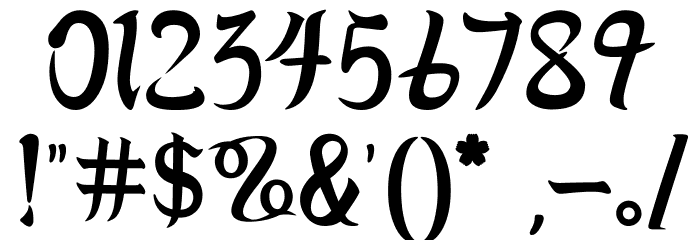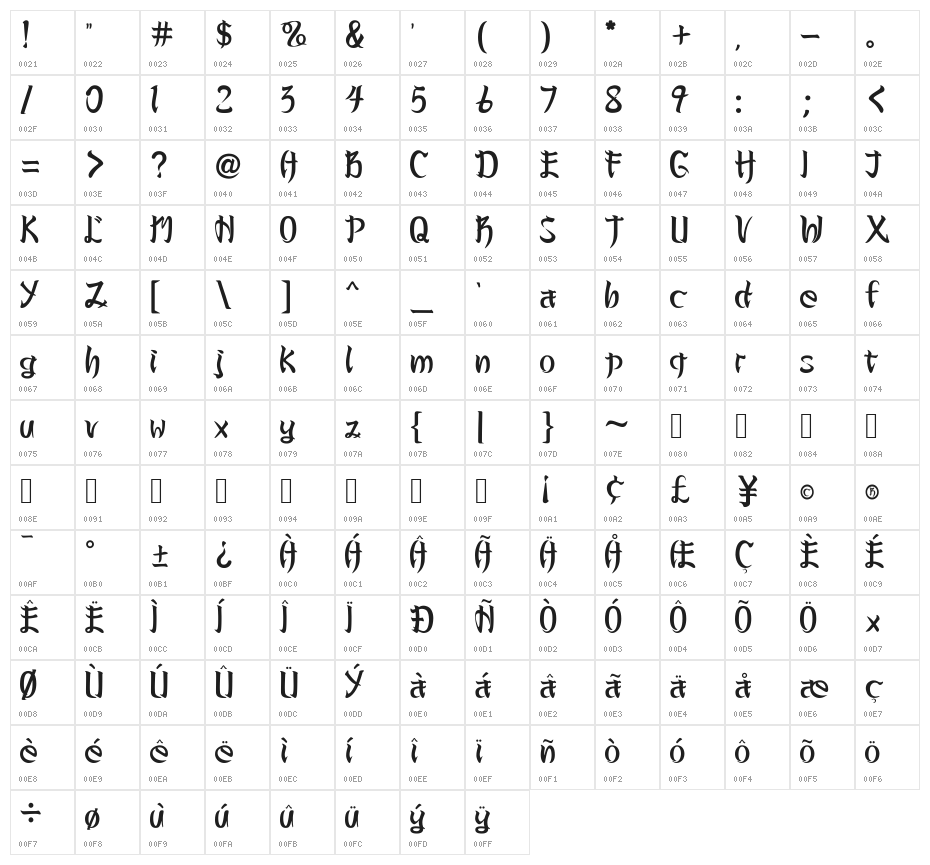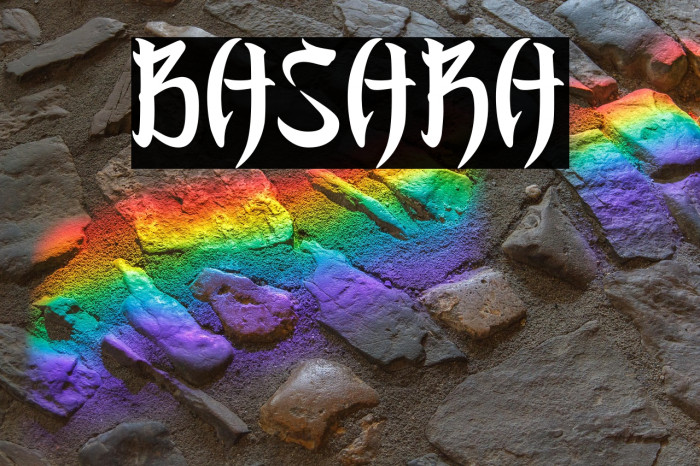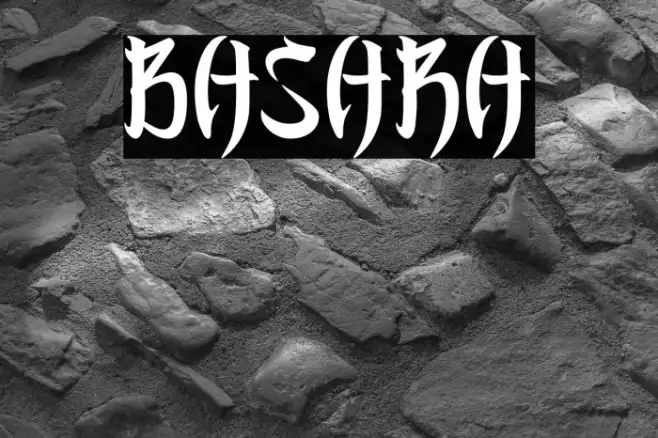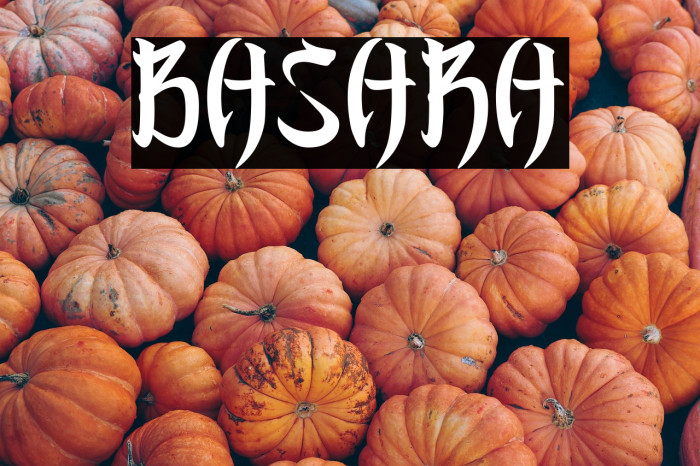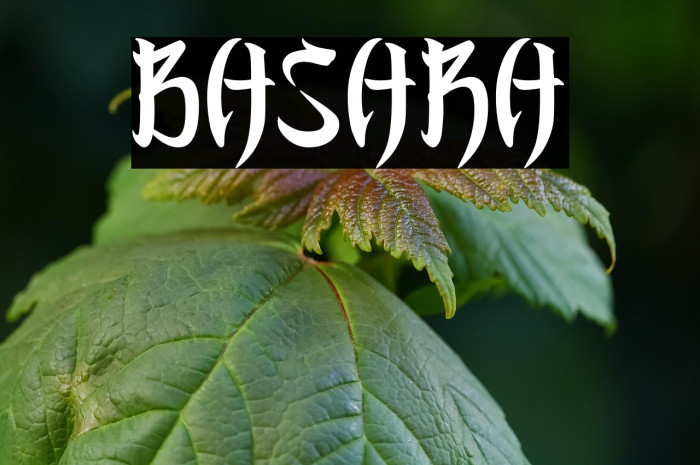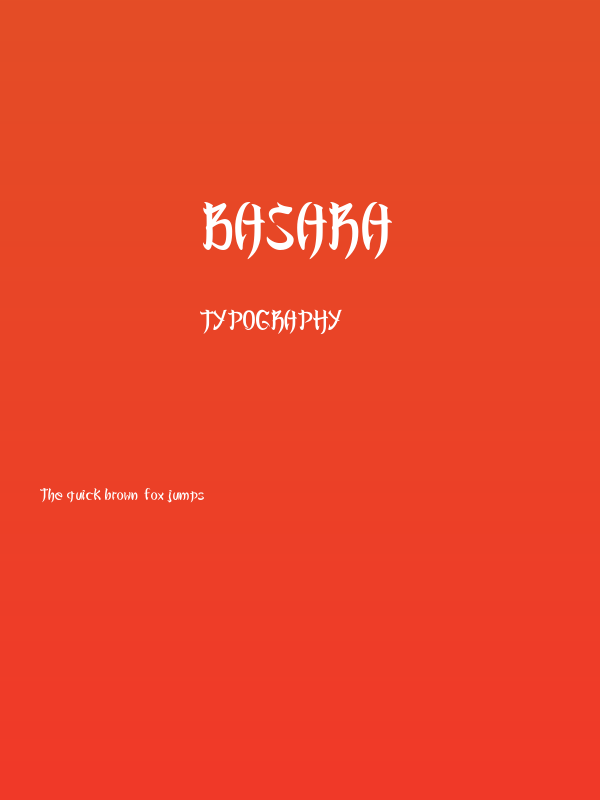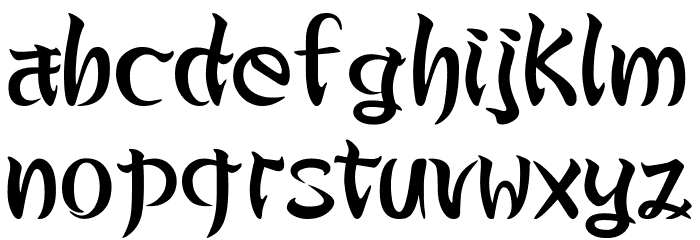
BASARA Font
BASARA Description
This font features a bold and dynamic style with a calligraphic flair, characterized by its dramatic curves and sharp edges. The uppercase letters exhibit a strong presence with their thick strokes and unique, artistic forms. The lowercase letters maintain a consistent style, offering a harmonious blend of fluidity and structure. Numbers and special characters follow the same expressive design, making them stand out with their boldness and intricate details. This font's overall appearance is both striking and elegant, suitable for projects that require a touch of sophistication and creativity.